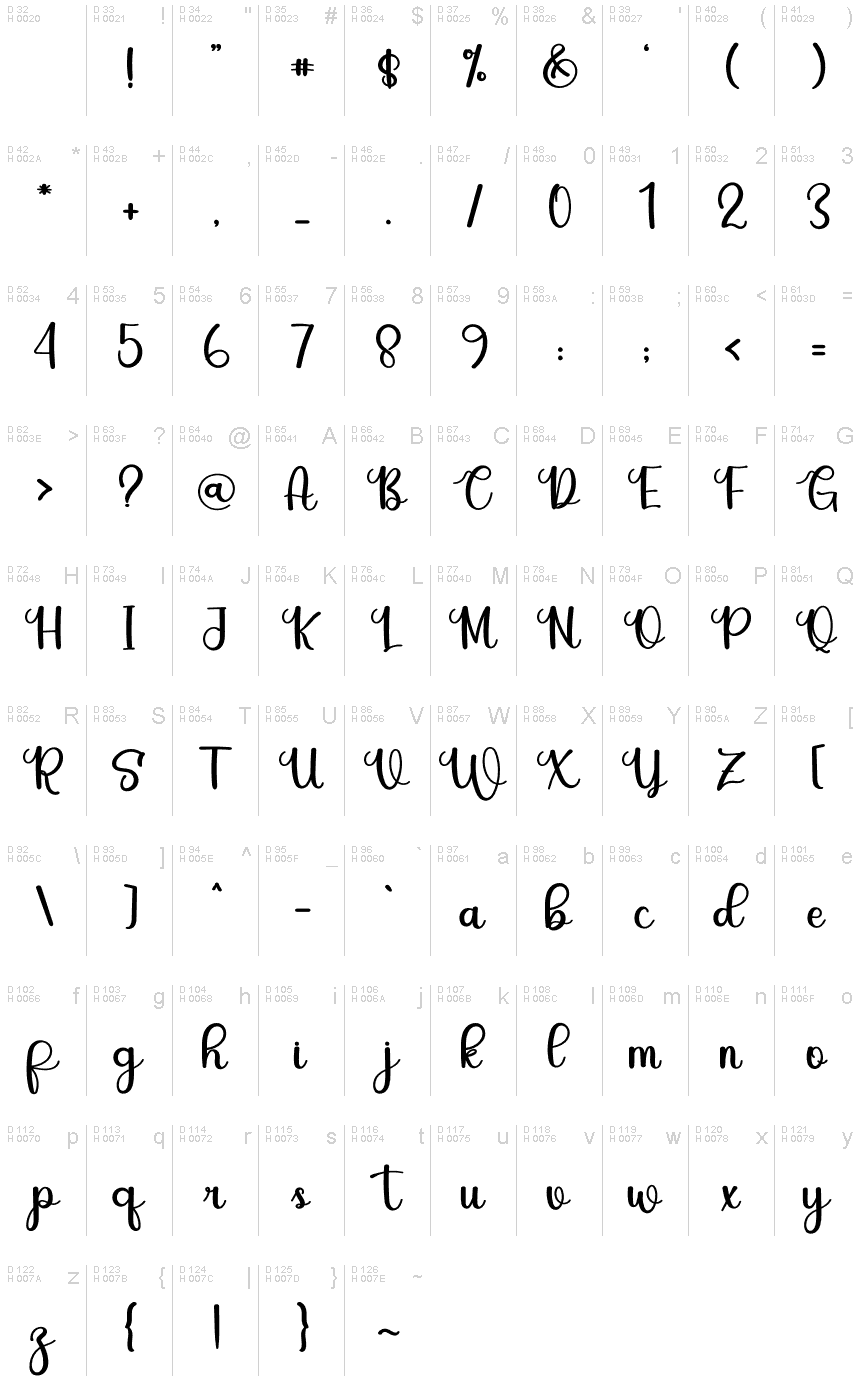
Premium Signature
Premium Signature font, designed by Inermedia Studio, is the perfect addition to any project that needs a touch of elegance and sophistication. Its handwritten signature style adds a personal touch that can elevate any design, from wedding invitations to business cards. With its cute and playful features, this semi-bold font is suitable for various projects such as social media graphics, branding materials, or even merchandise designs. So if you're looking for a font that exudes class and style while still being approachable and fun, Premium Signature is the one for you!